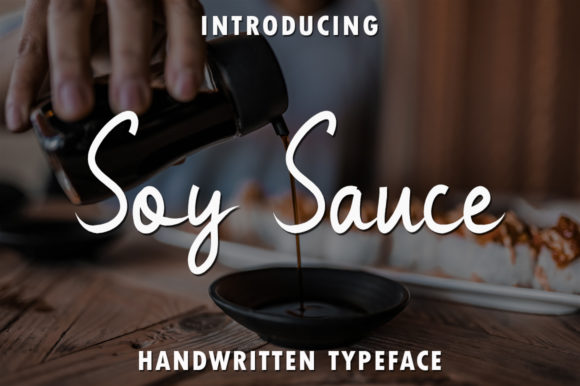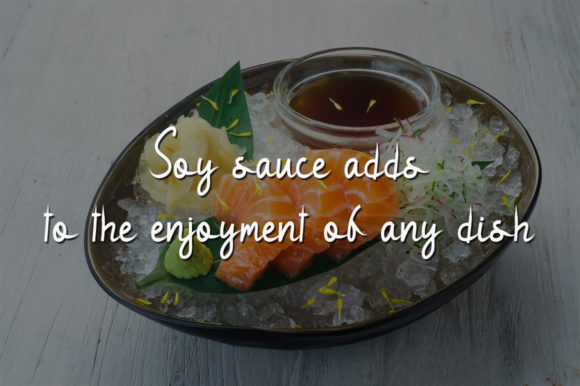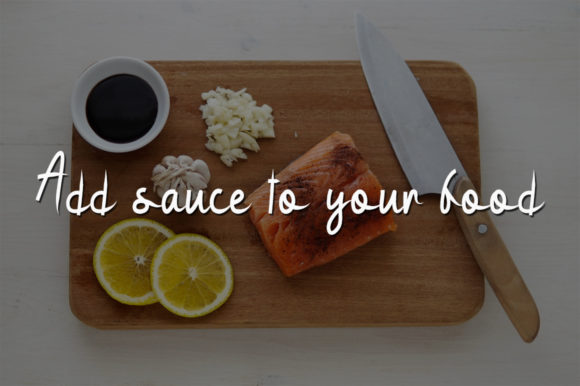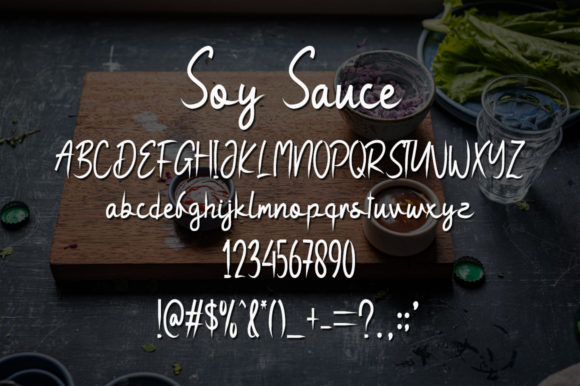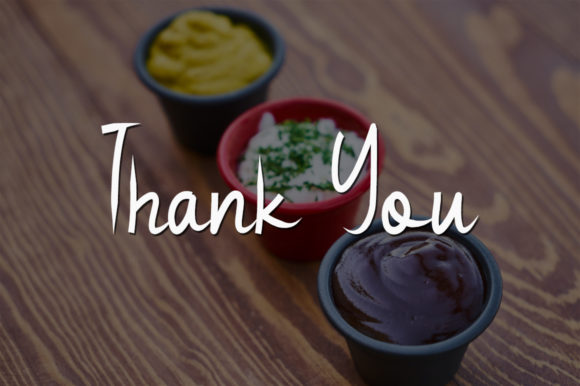
Soy Sauce Font
About Soy Sauce Font
Soy sauce is a friendly handwritten font. This font is perfect for greeting cards, headlines or very short, invitations and expressive texts.